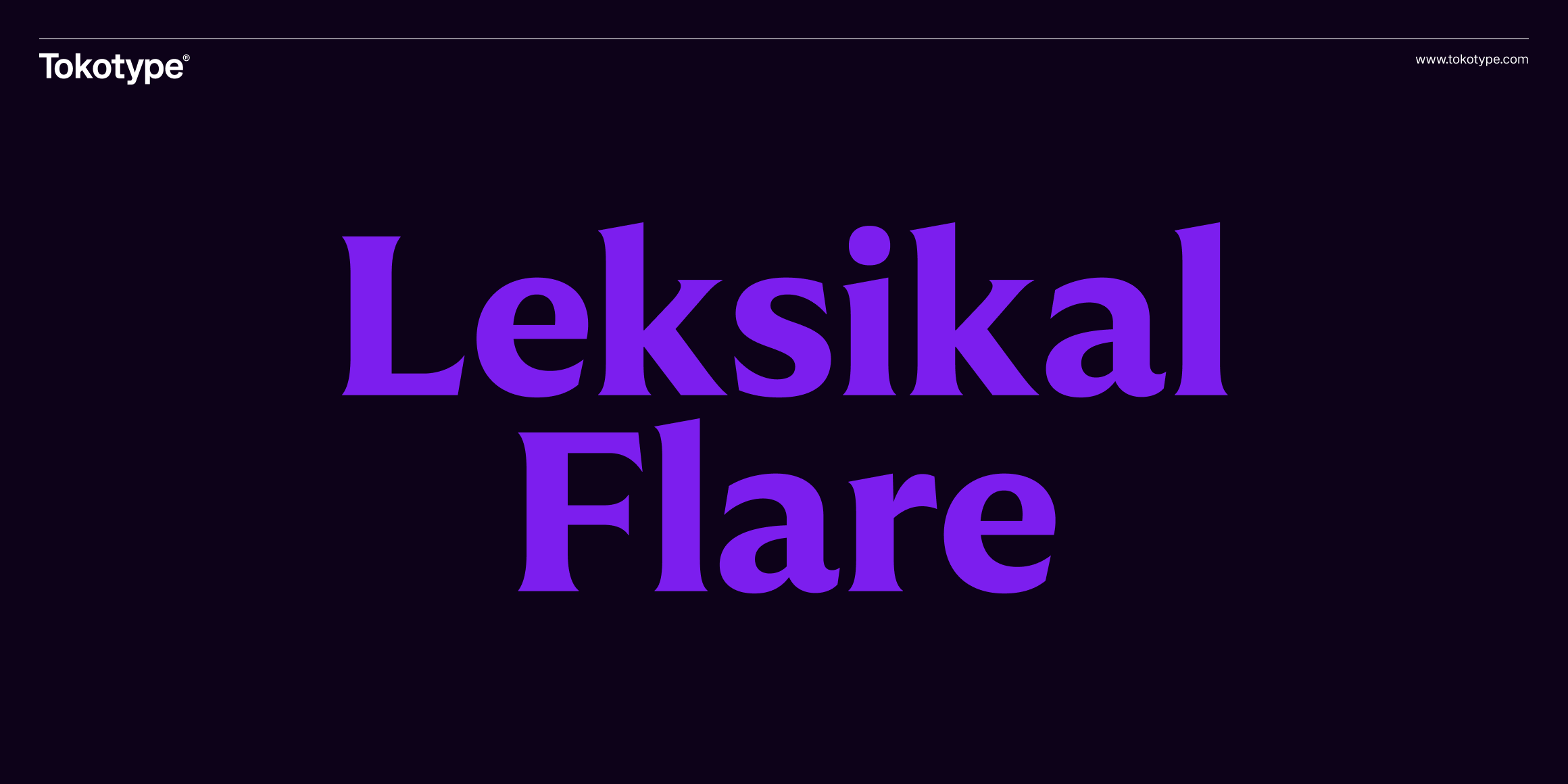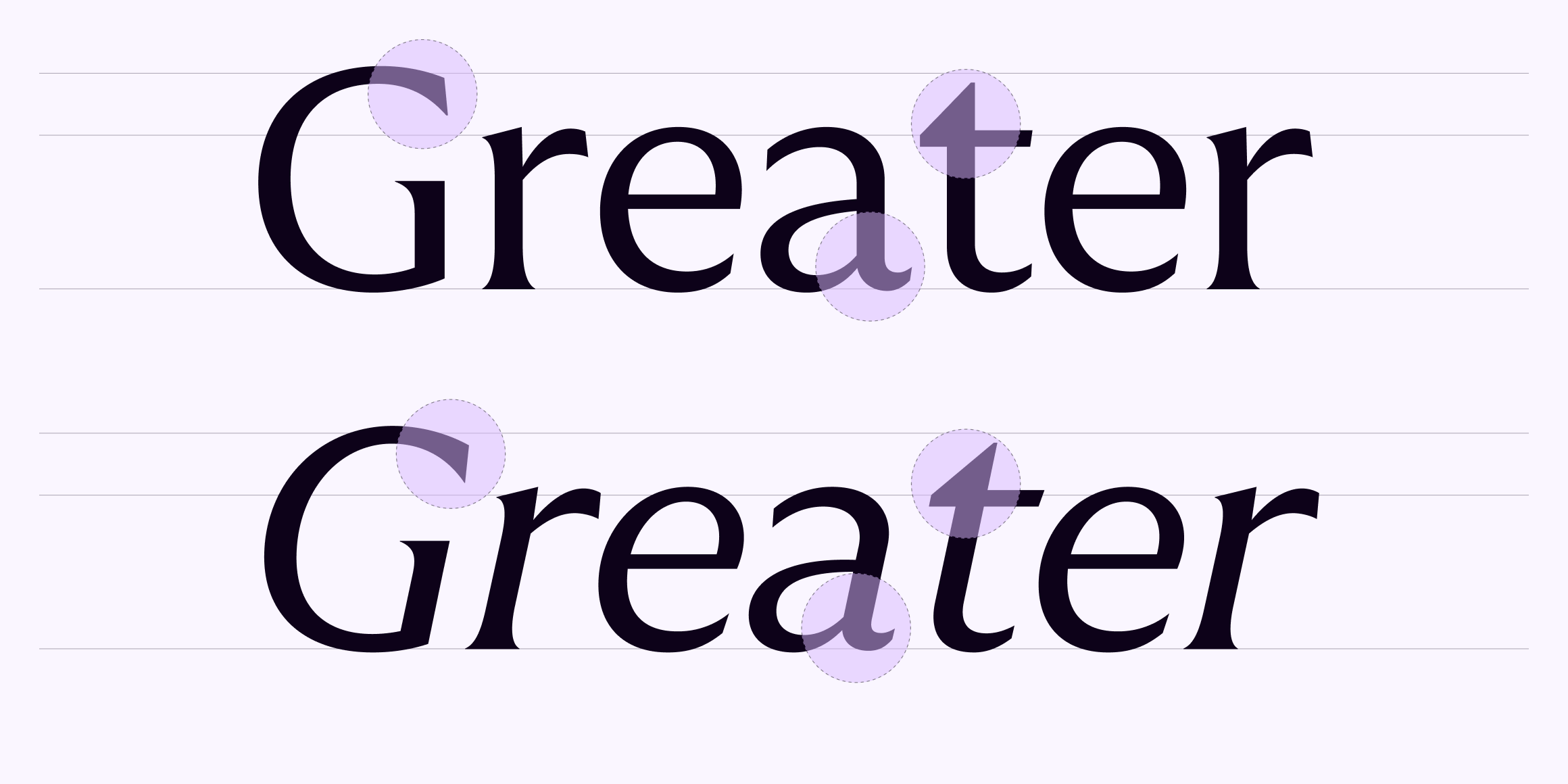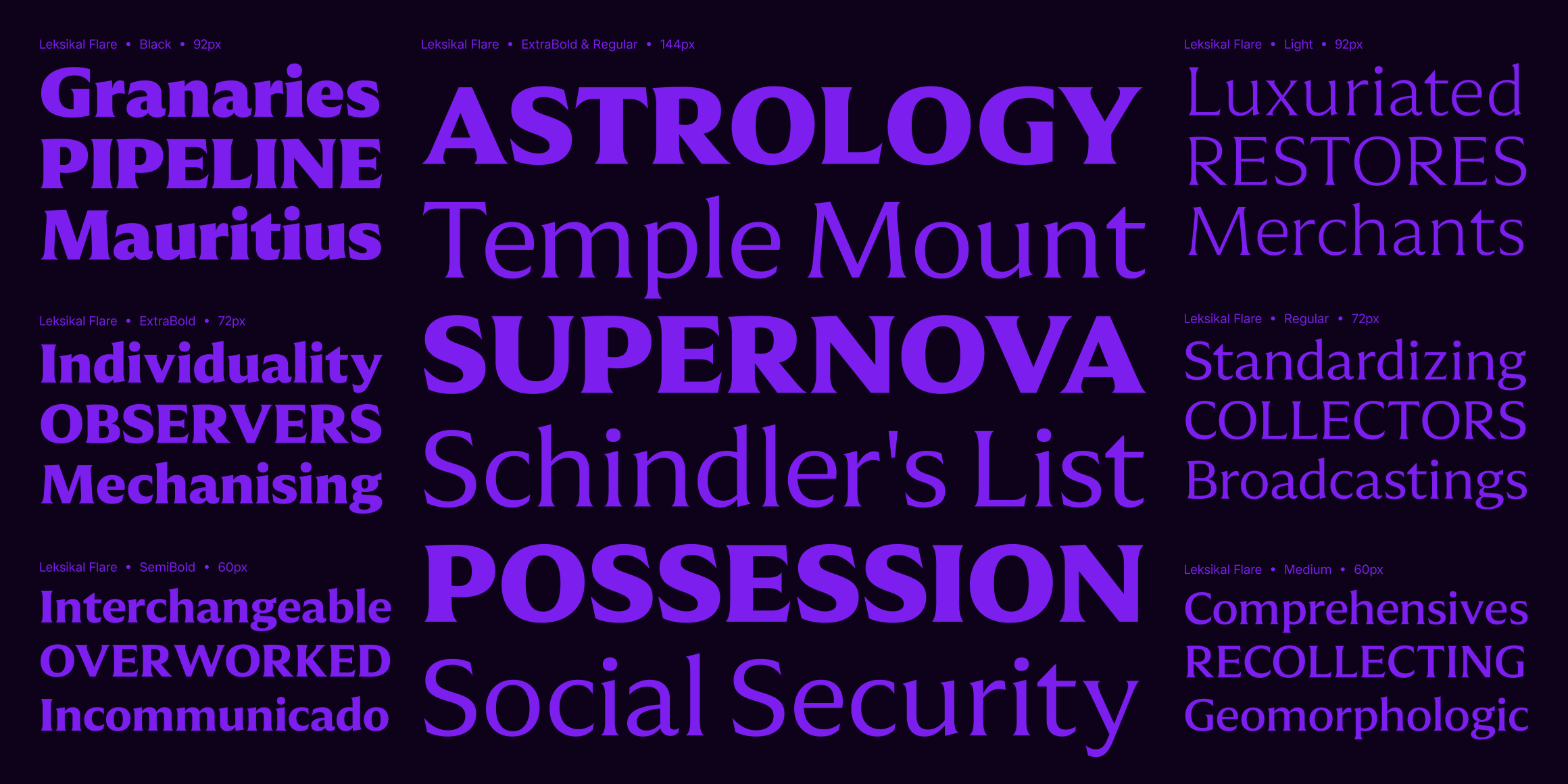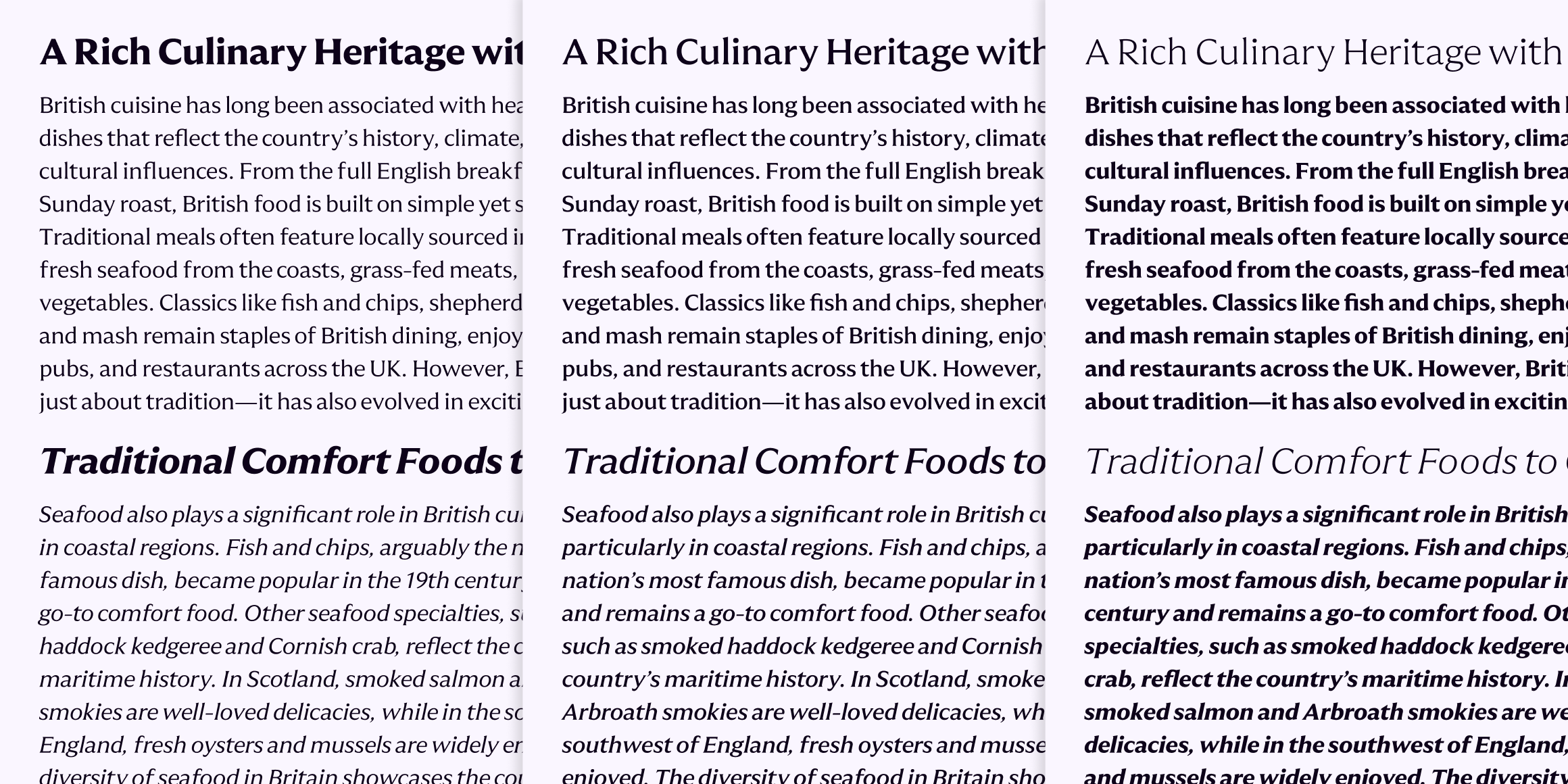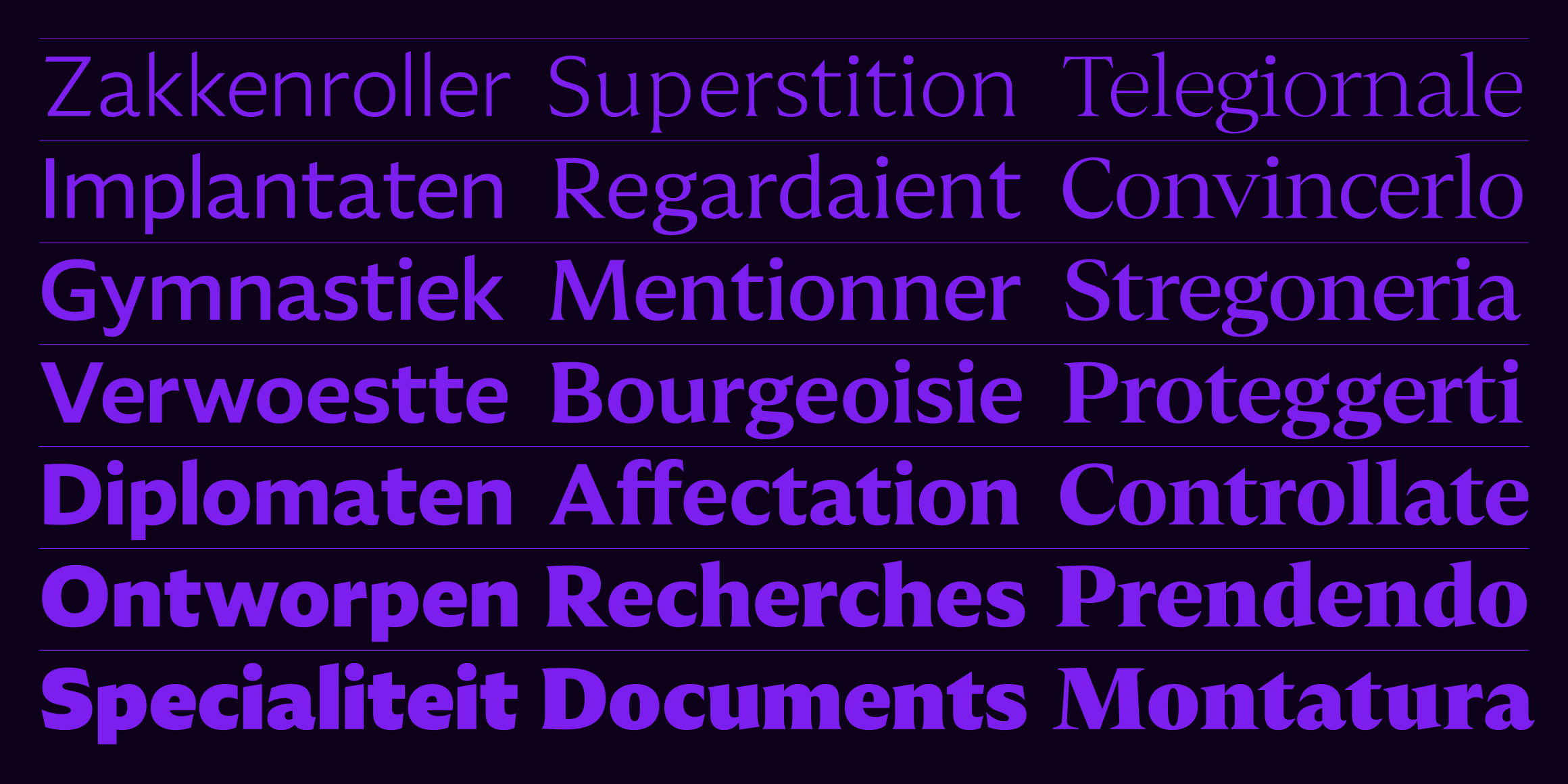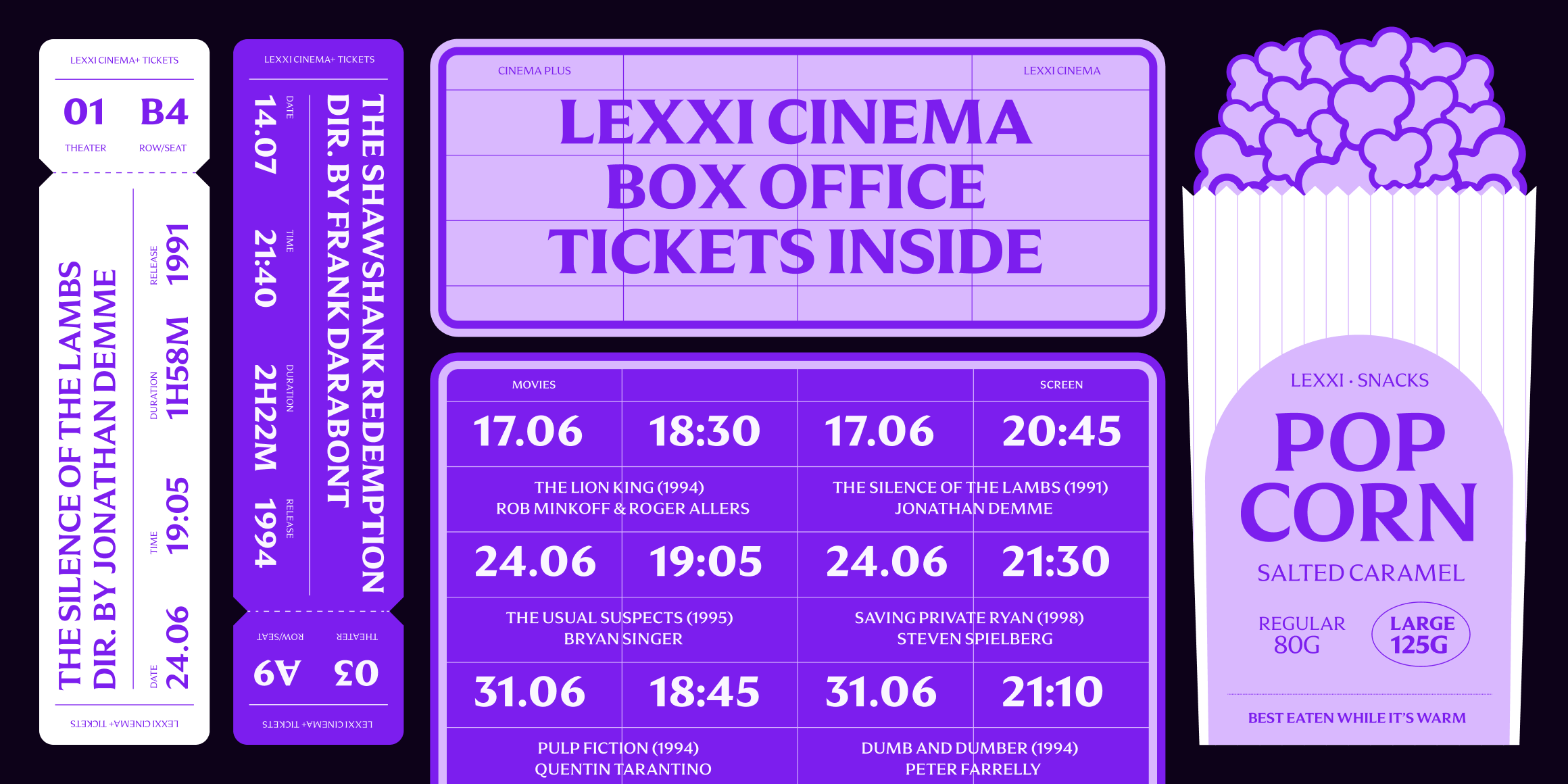
Leksikal Flare
Tokotype
Leksikal is a versatile font that draws inspiration from the traditional humanist sans typeface. Leksikal also has variable axes that include both sans-serif and serif forms, is adaptable, and is designed with a modern humanist aesthetic. The typeface proportions are based on Gill Sans, which design’s was influenced by both monumental Roman capitals and traditional ""old-style"" serif letters. This distinctive combination lends Leksikal a style that distinguishes it from other geometric sans-serif fonts.
Leksikal variable offers an unprecedented level of flexibility and control, offering a virtually limitless range of possibilities. Available in 3 axes, designers have the ability to precisely tailor it to their specific needs, optimizing legibility, aesthetics, and user experience across various devices and screen sizes. The “wght” (weight) axis allows users to transition seamlessly between the lightest and the boldest weights, while “ital” (italic) axis enables fine-tuning of the slant of each character. The “CASL” (casual) axis transforms the contemporary and streamlined humanist sans-serif forms into the fluidity of transitional serifs. Other than the serif and sans-serif families, Leksikal offers a flare style, found between the extremes of the ""CASL” (casual) axis, adding another dimension to its versatility.